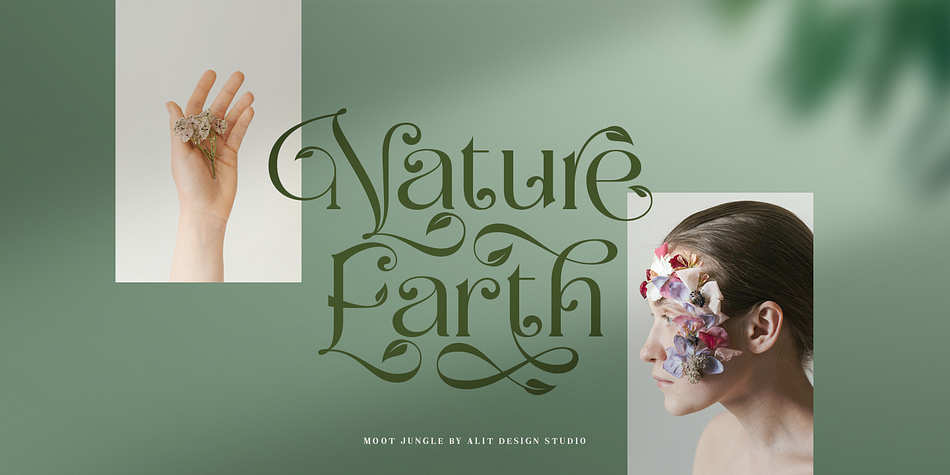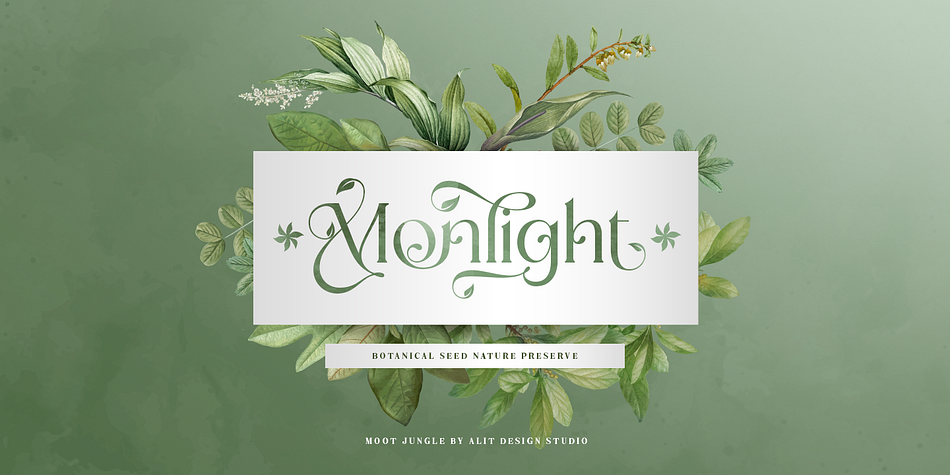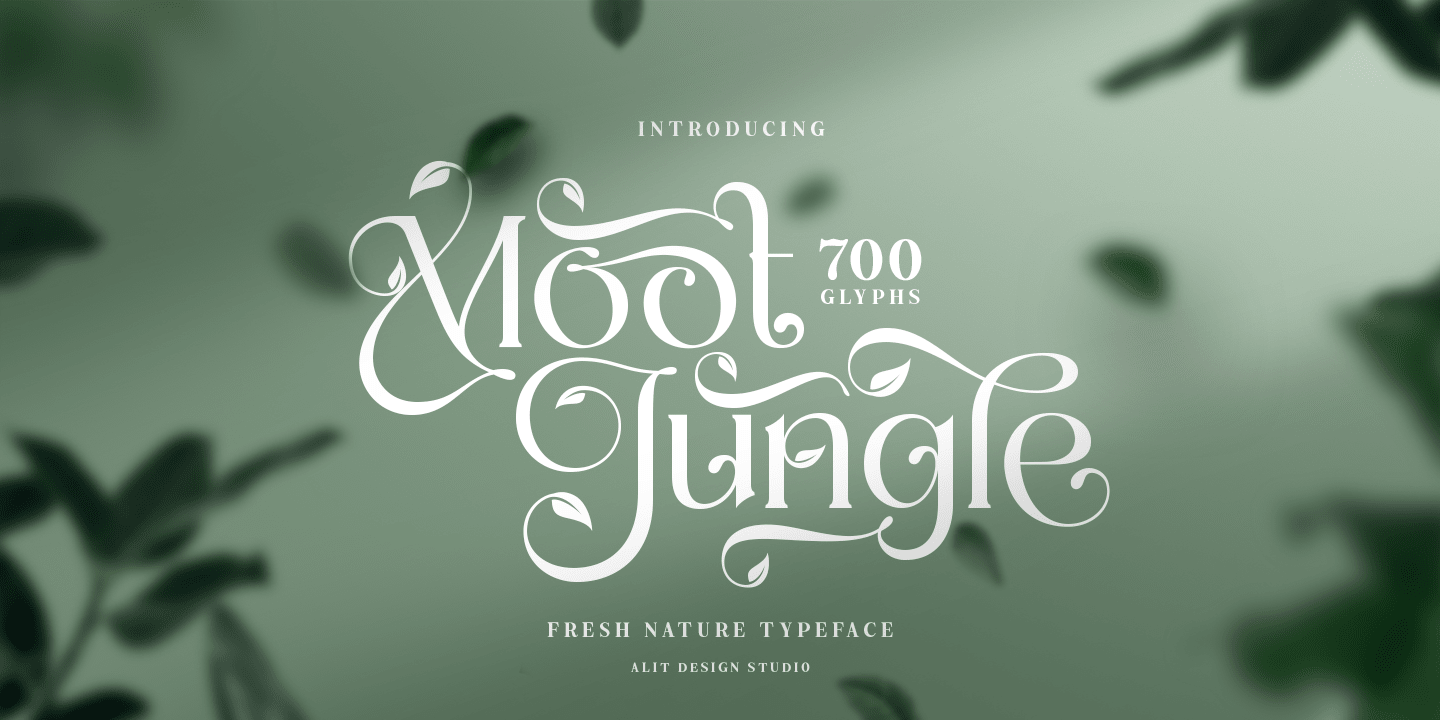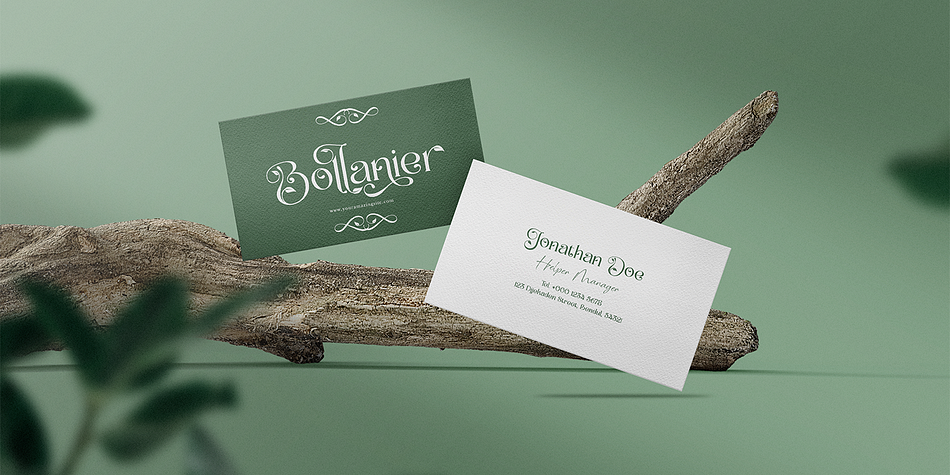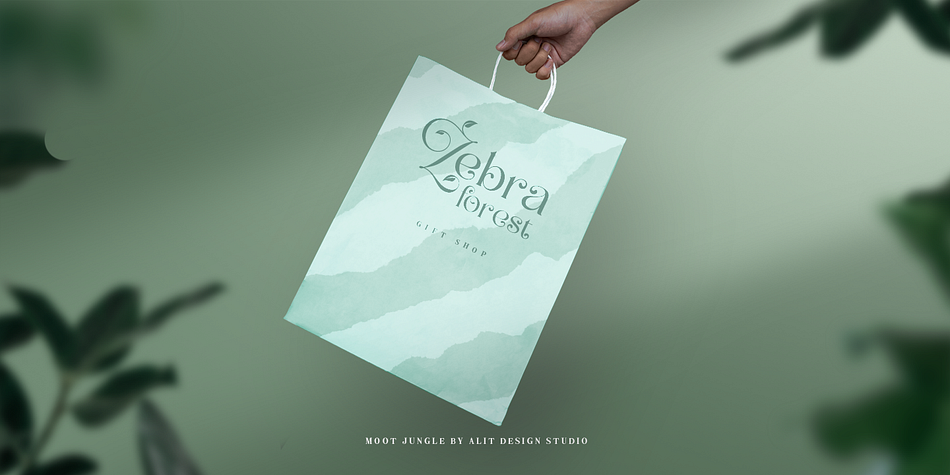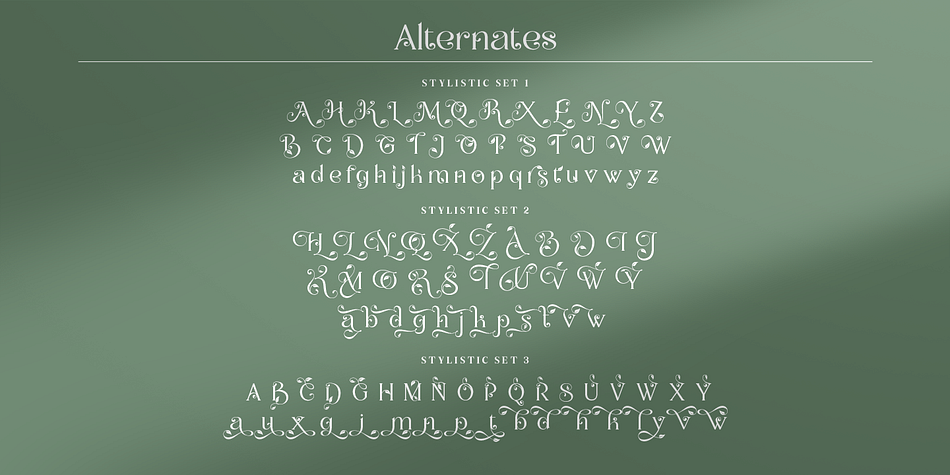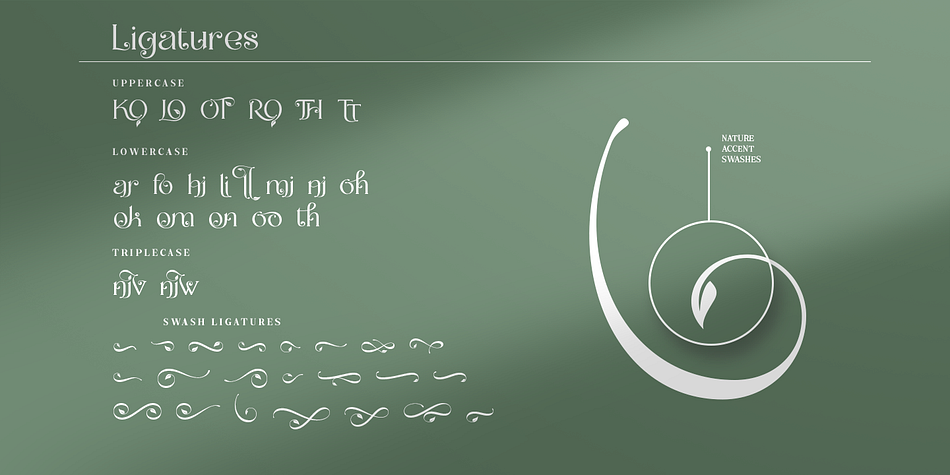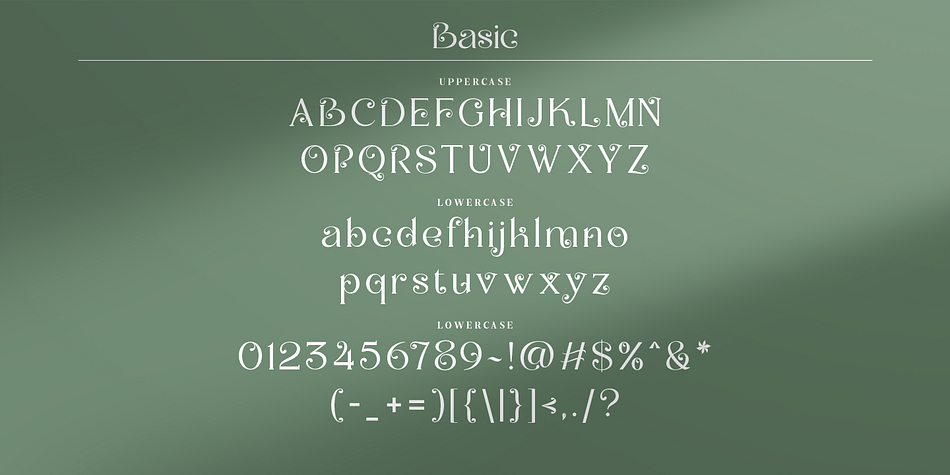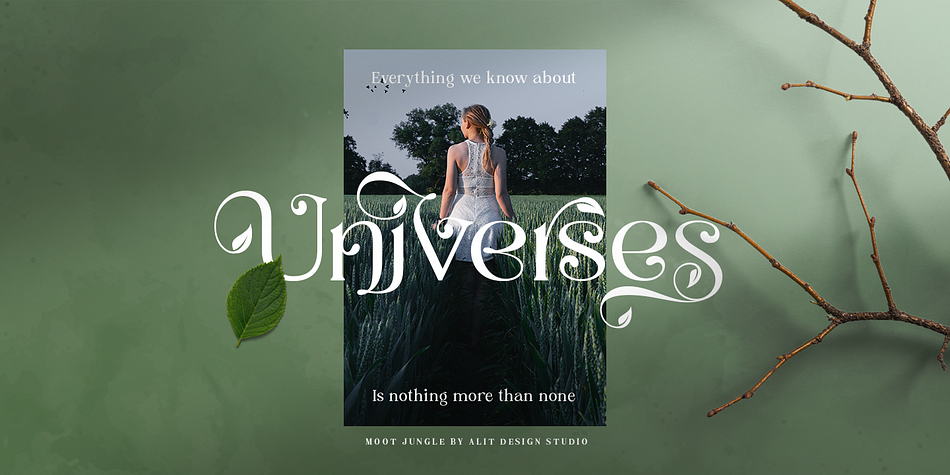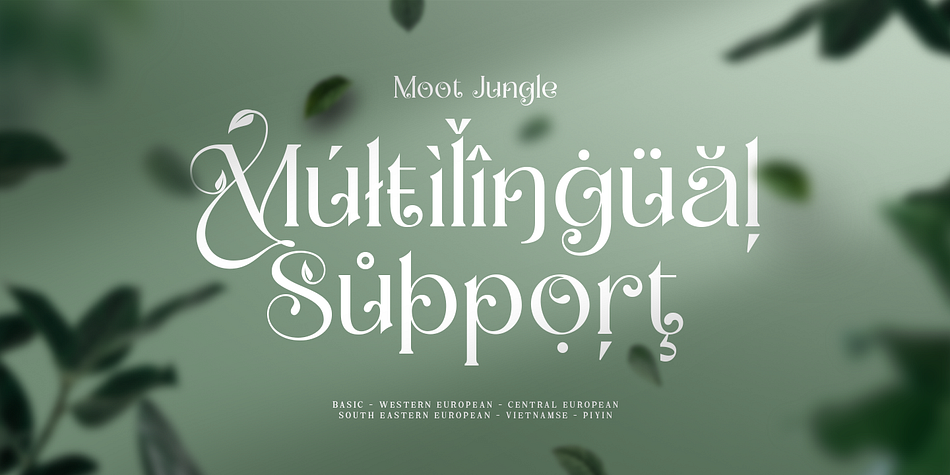
The Moot Jungle
Designed by Alit Suarnegara, The Moot Jungle is a display font family published by Alit Design.
Presenting ????The Moot Jungle Nature Font???? by alitdesign.
“The Moot Jungle” is an elegant serif font with a natural twist. Inspired by the beauty of nature, this font features a stunning swash of leaves that adds a touch of sophistication to any design. The serifs are delicate and refined, making it perfect for elegant, upscale designs. Whether you’re creating a logo, invitations, or other design projects, “The Moot Jungle” is sure to make a lasting impression.
In addition, “The Moot Jungle” has a versatile design, making it suitable for various uses such as headers, titles, body text, and more. The font supports multiple languages and includes a full set of uppercase and lowercase letters, numbers, and punctuation marks. It also comes with stylistic alternatives and ligatures, adding to its uniqueness and allowing for even more creative freedom. Embrace the beauty of nature and elevate your design with “The Moot Jungle” font.
The Moot Jungle font has alternatives that you can combine between swashes and symbols that have the theme of elegant nature. Besides that this font is very easy to use both in design and non-design programs because everything changes and glyphs are supported by Unicode (PUA).
The Moot Jungle Font has a total of 700 glyphs including symbol, multilingual.
Language Support : Latin, Basic, Western European, Central European, South European,Vietnamese.